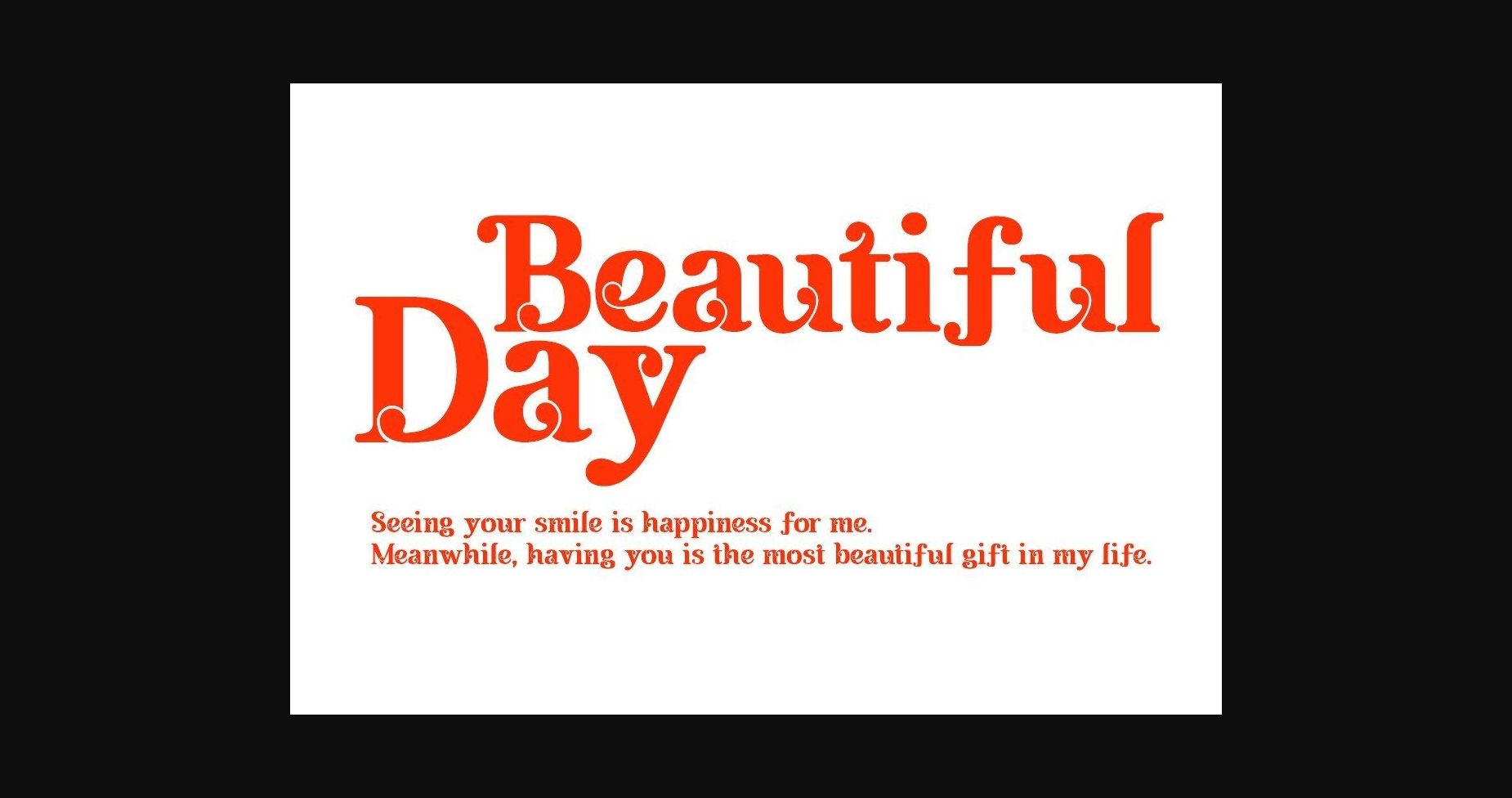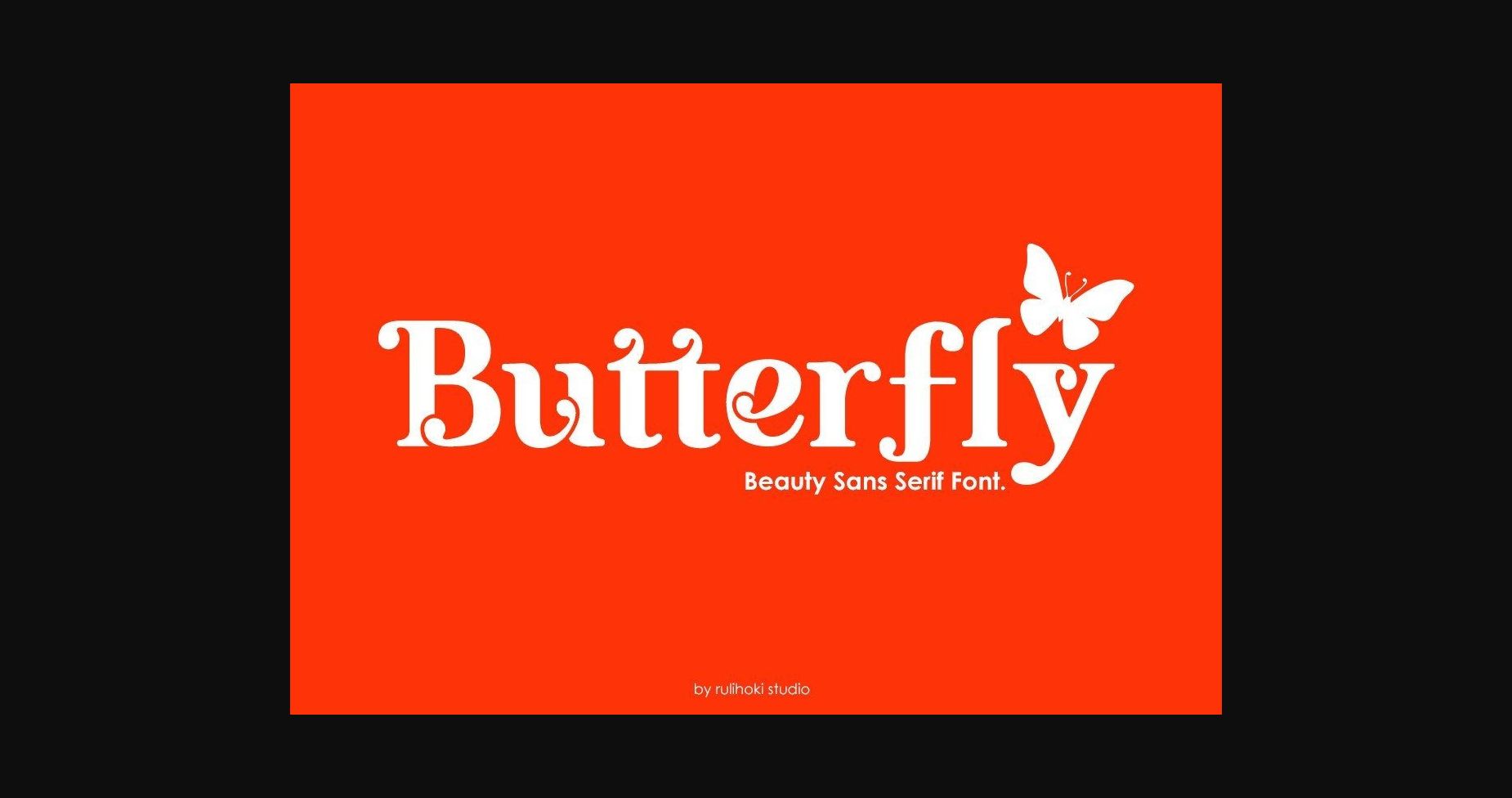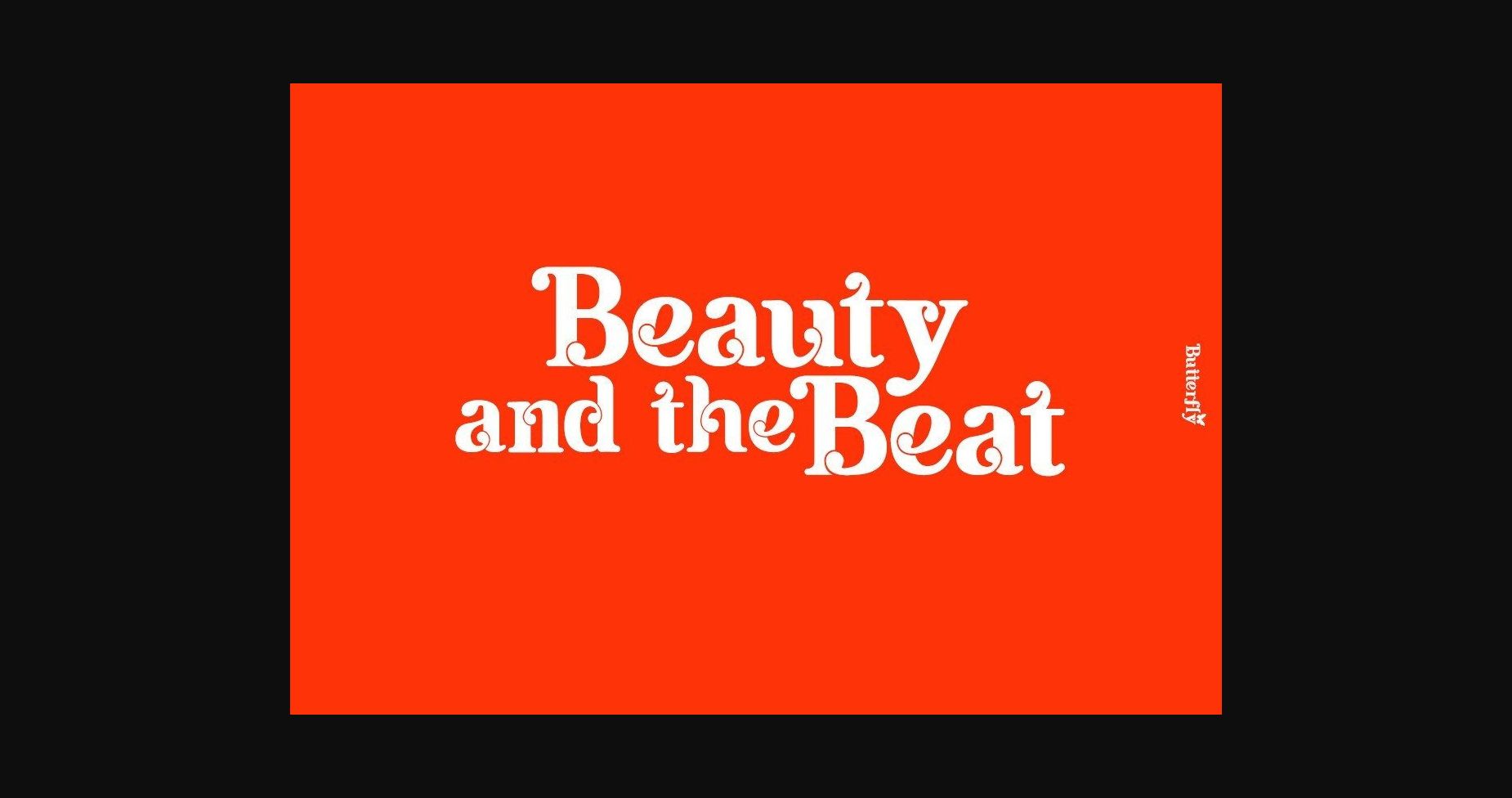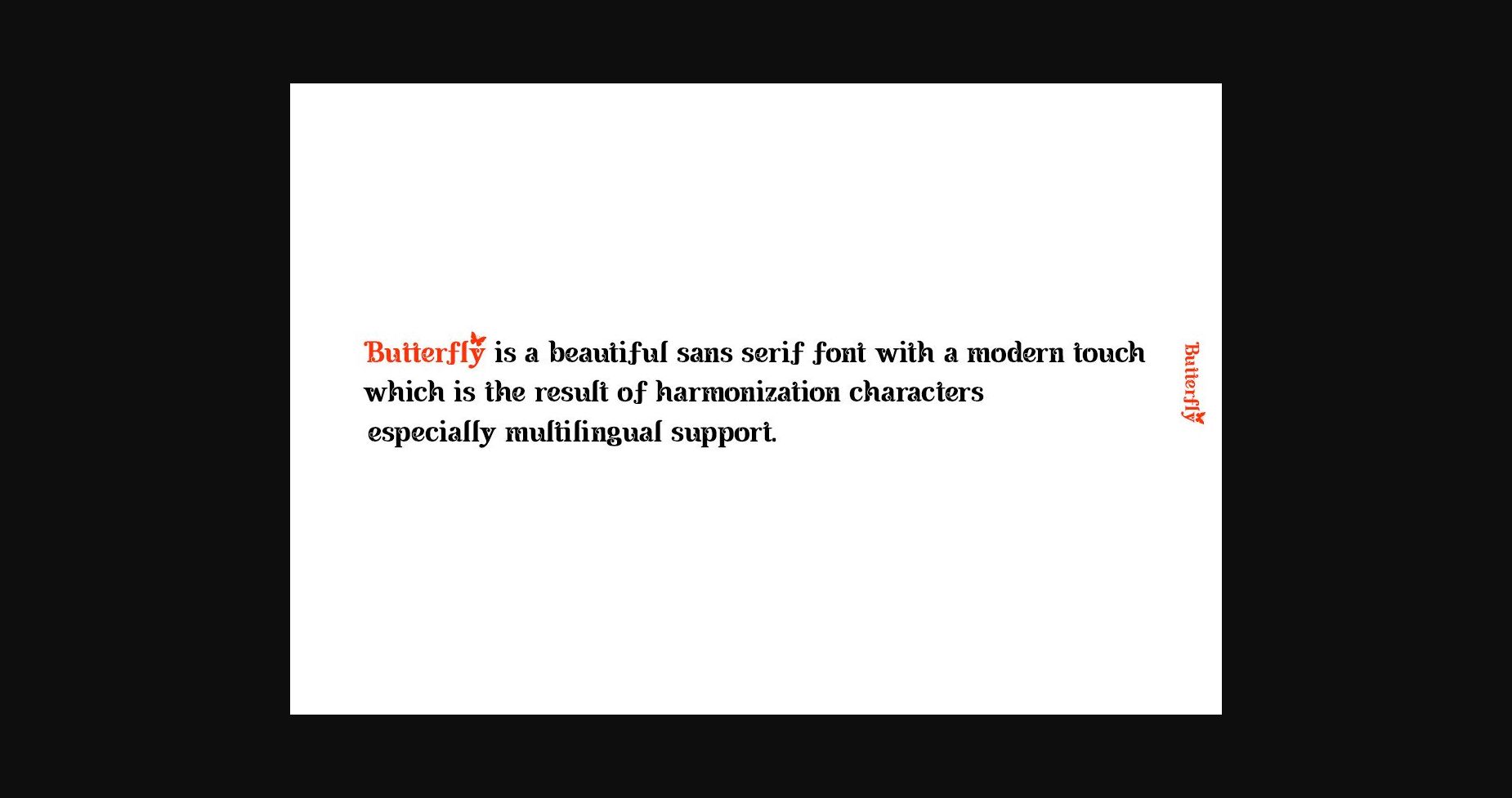
Butterfly is an incredibly elegant and delicate font. It features a unique style and modern touch. It feels playfully nostalgic and delivers a unique style and charming aesthetic. Use it to add that special modern touch to any design idea you can think of!